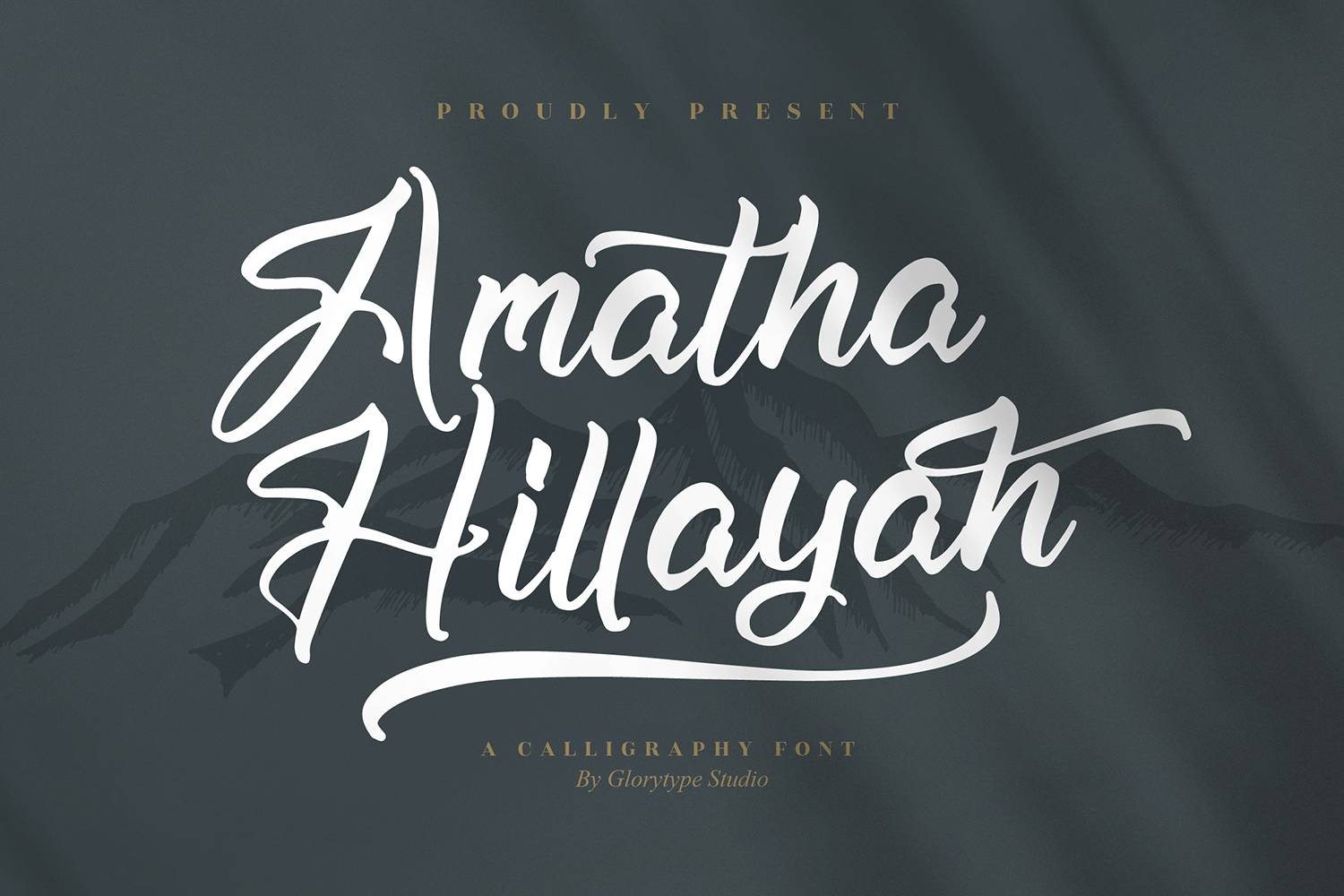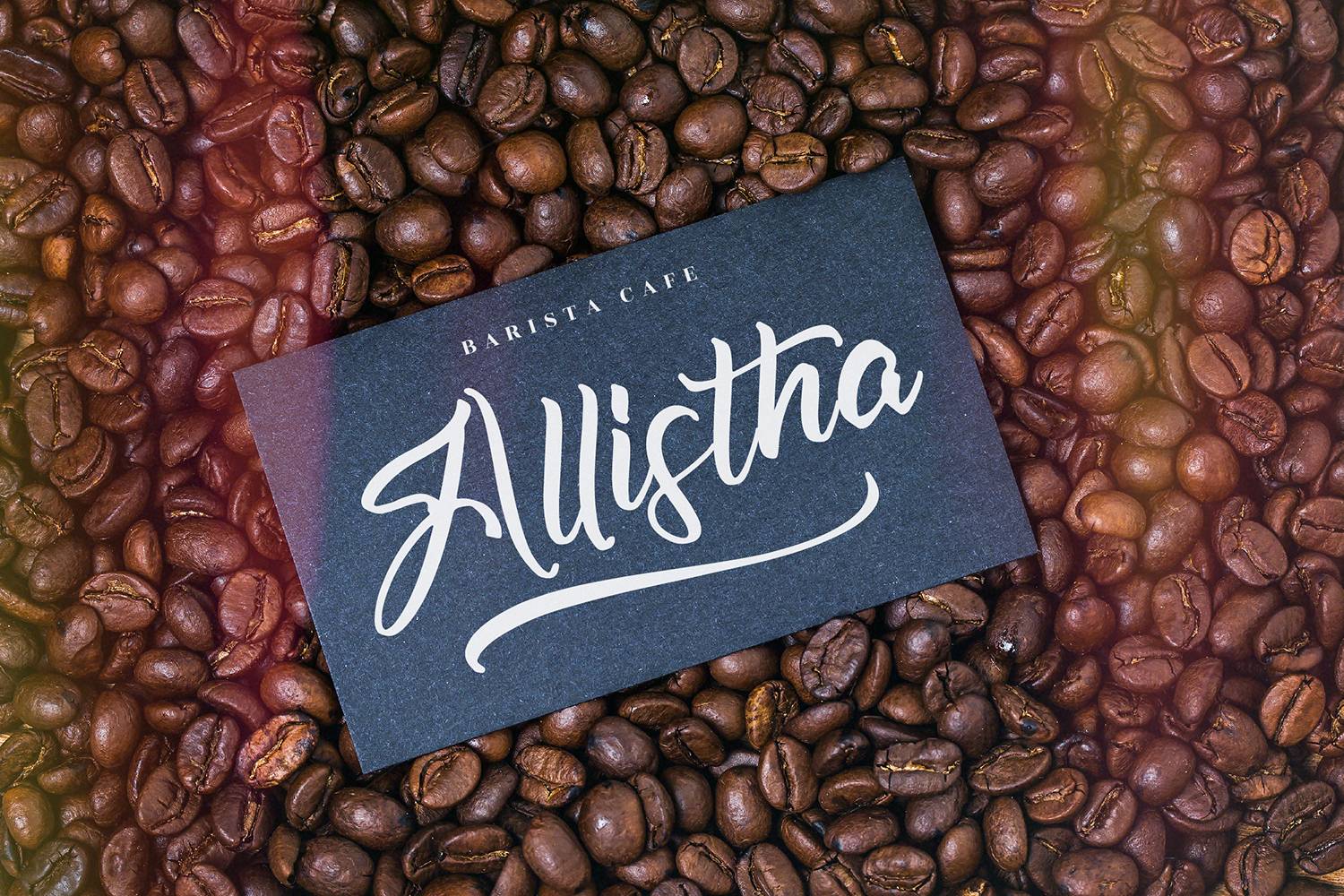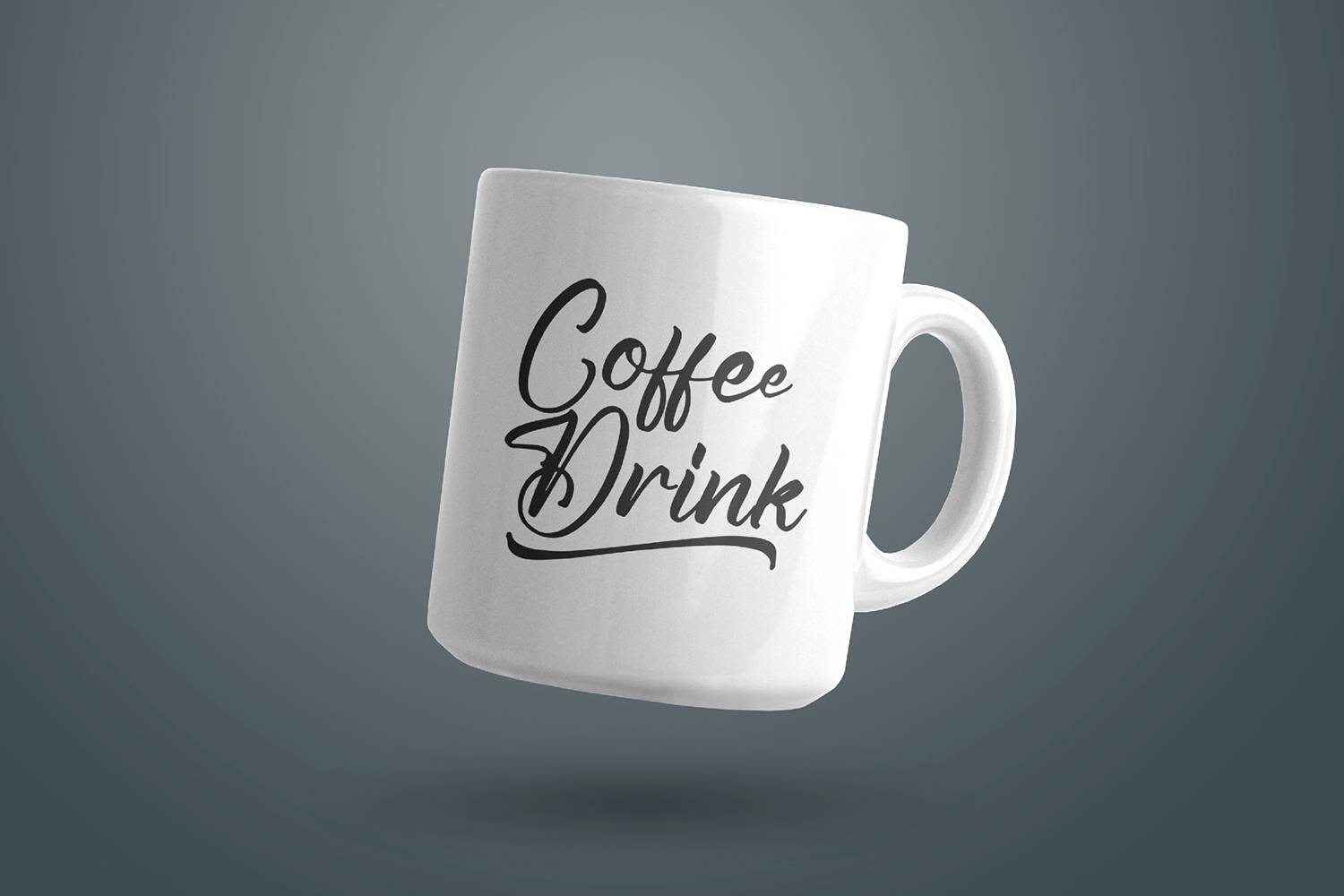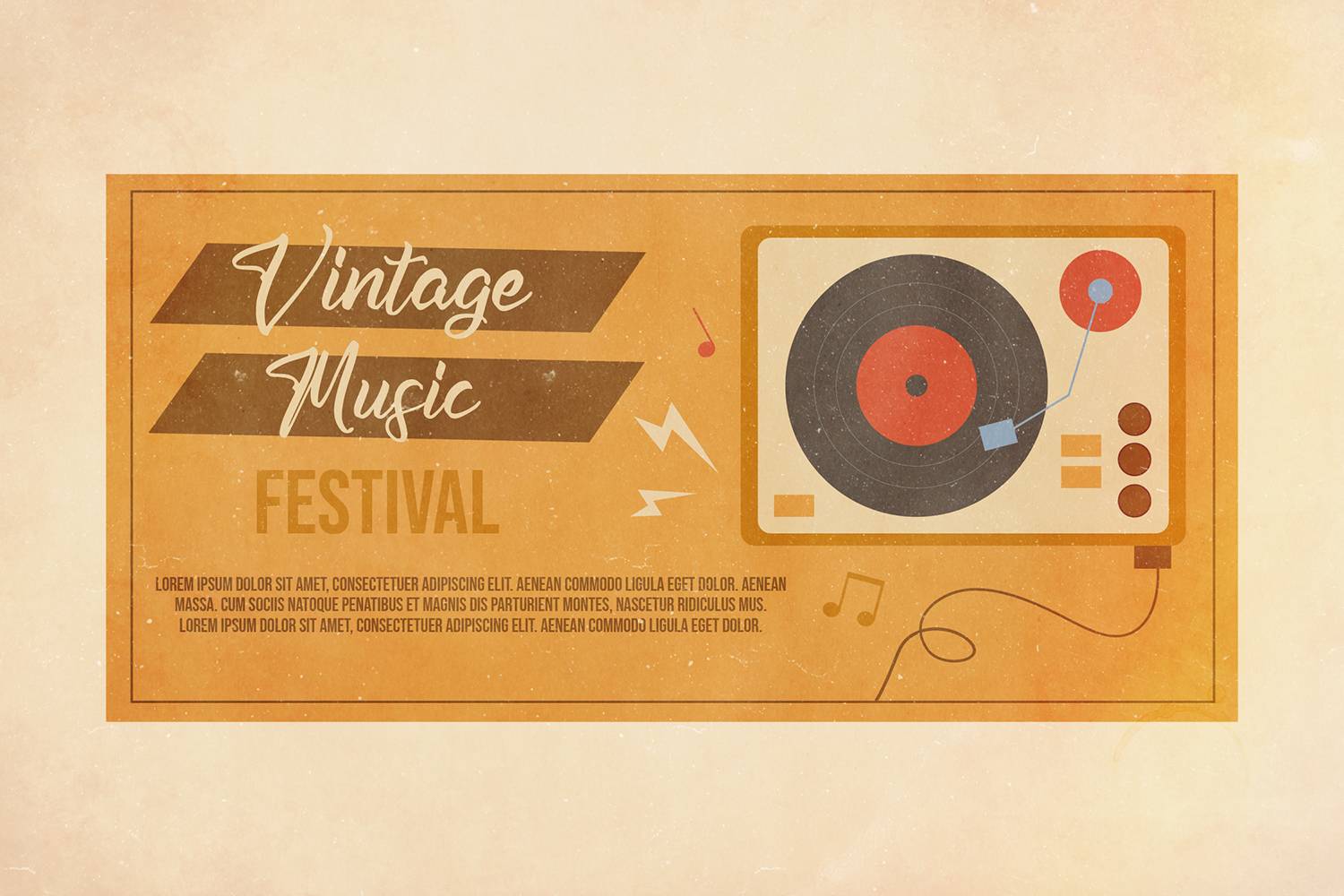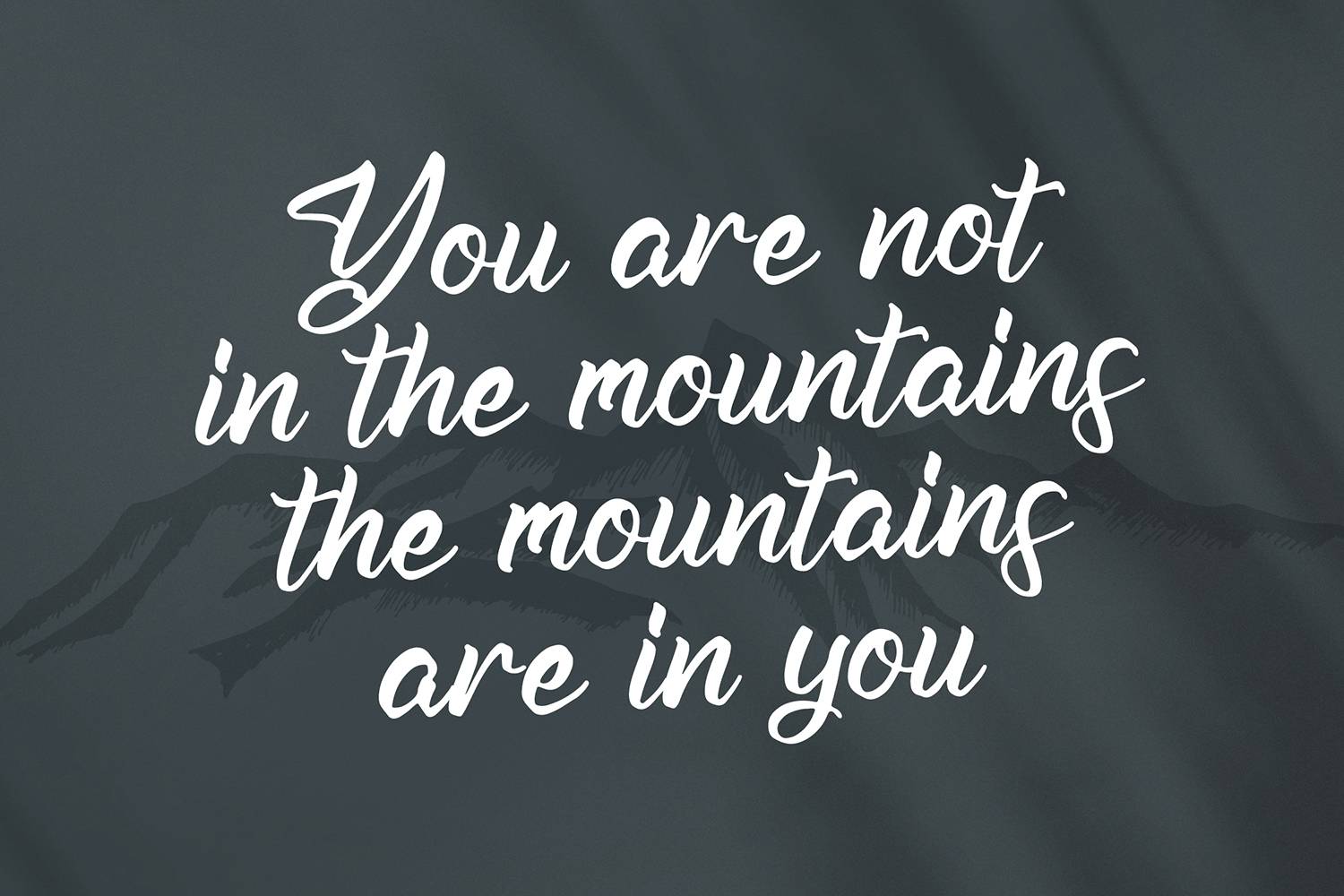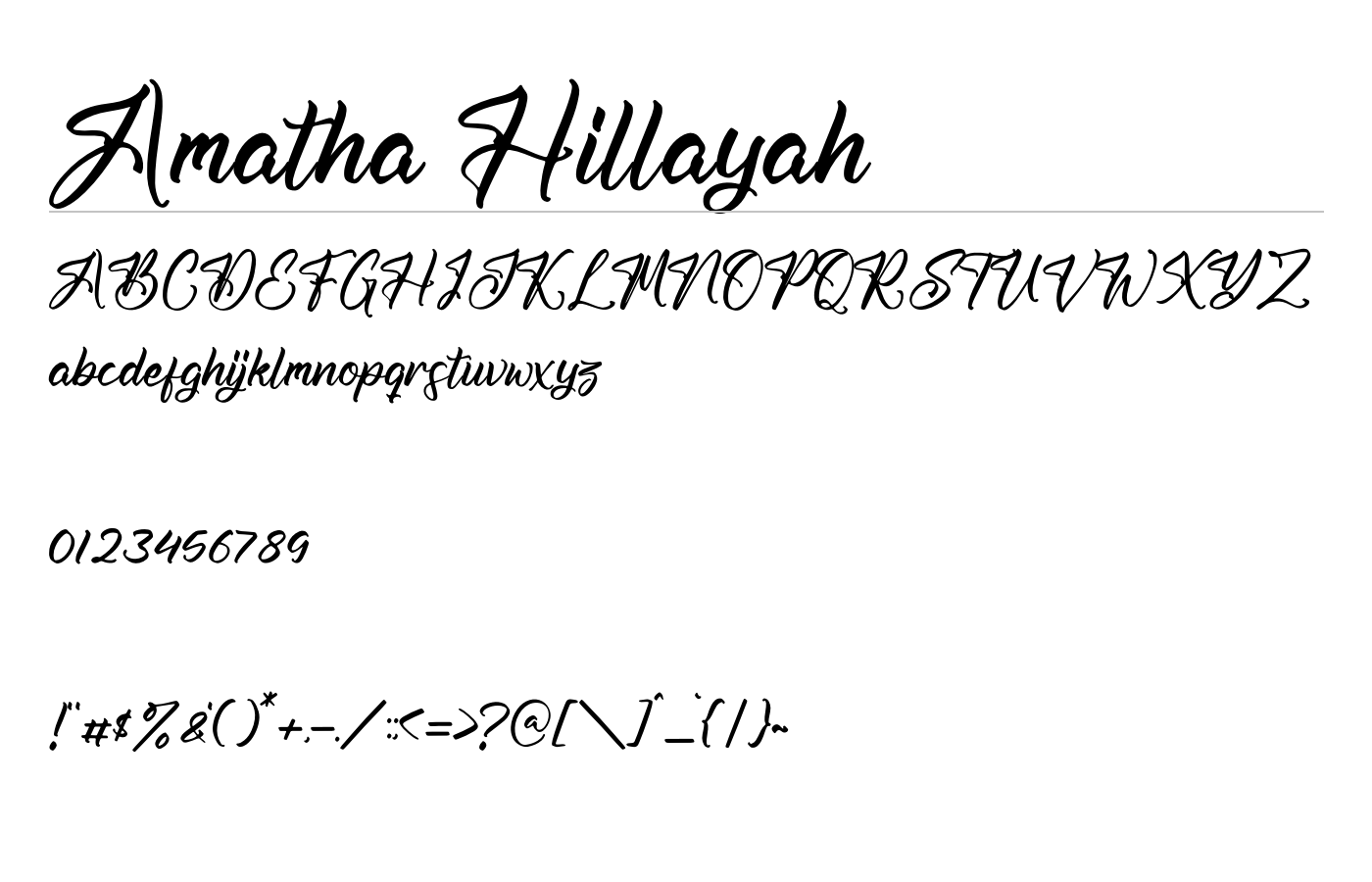
Amatha Hillayah is an elegant, script-style font with a hand-drawn feel, featuring fluid, connected letterforms that convey a personal and artistic touch. Its moderate weight and slightly condensed style, combined with smooth, brush-like strokes, make it perfect for creative branding, invitations, and sophisticated design projects looking for a modern yet timeless handwritten flair. This font works beautifully in logos, headlines, and decorative text where a warm, friendly, and refined aesthetic is desired.
Amatha Hillayah Font
About Amatha Hillayah Font